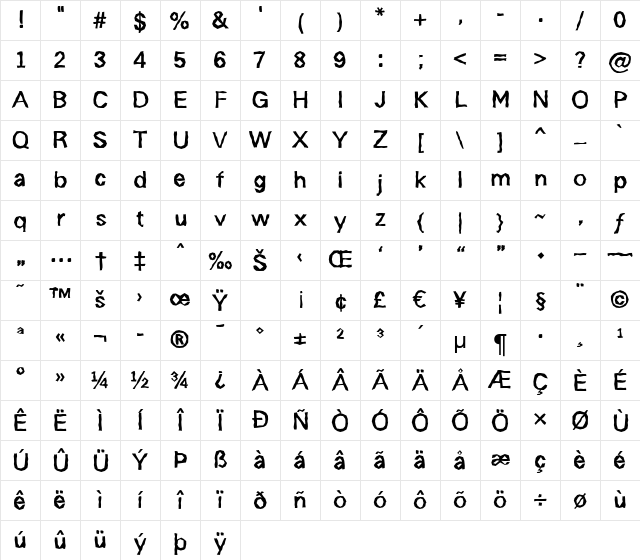
a_ReportSansBrk Regular
Designer: W.Chufarofsky & M.Slutsker
Design Context for a_ReportSansBrk
a_ReportSansBrk is a composed and adaptable typeface that performs quietly and consistently across a wide range of design contexts.